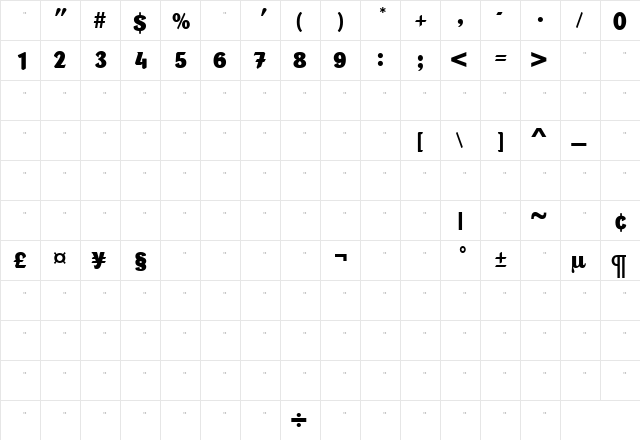
PortobelloExtraBoldTab Roman
Design Context for PortobelloExtraBoldTab Typeface
PortobelloExtraBoldTab takes a measured approach to typography — its balanced proportions and neutral character make it a reliable workhorse for both digital and print work. The heavy weight commands attention and anchors typographic hierarchies.